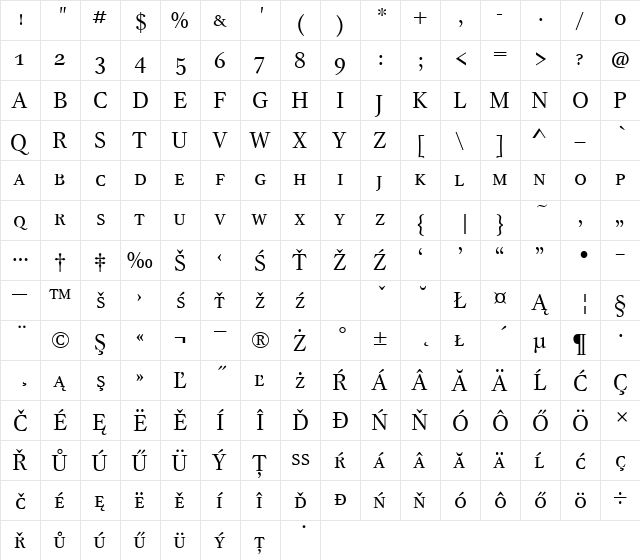
GammaItcSCTEE Regular Font Preview
GammaItcSCTEE Regular
GammaItcSCTEE Regular Font Details
Design Context for GammaItcSCTEE Typeface
GammaItcSCTEE is a composed and adaptable typeface that performs quietly and consistently across a wide range of design contexts.